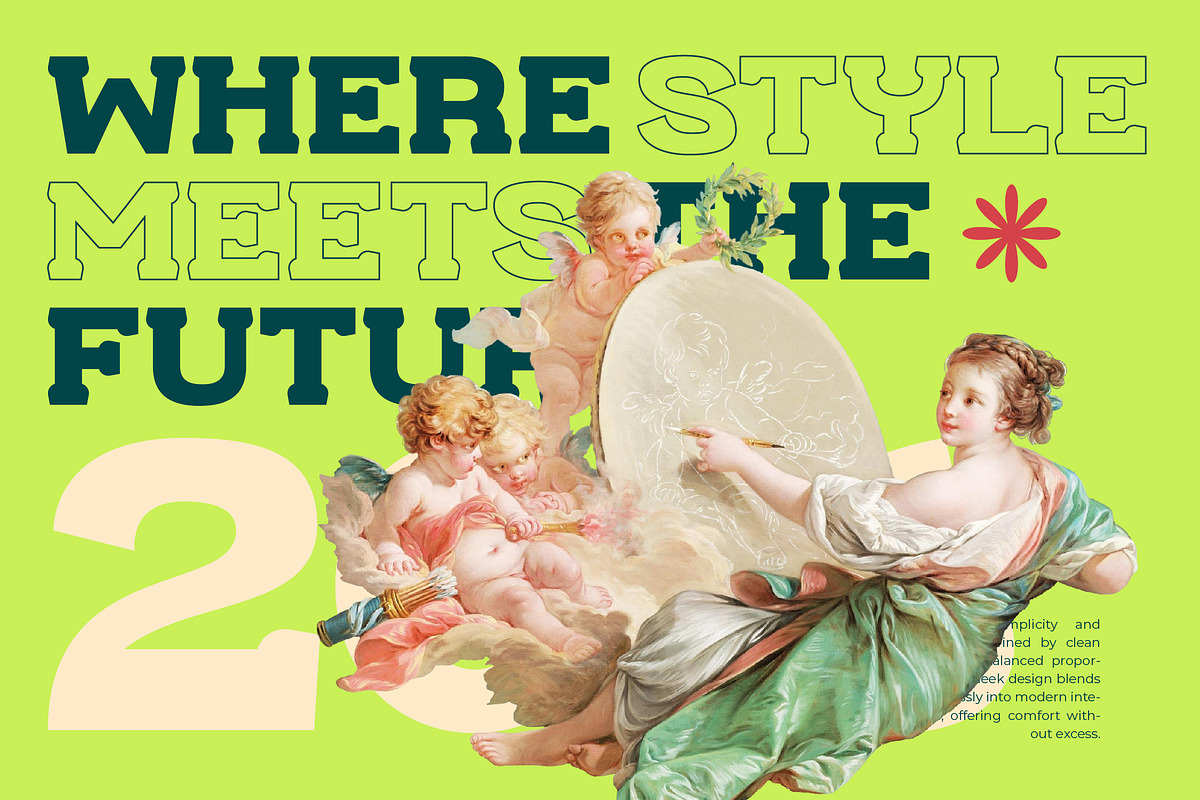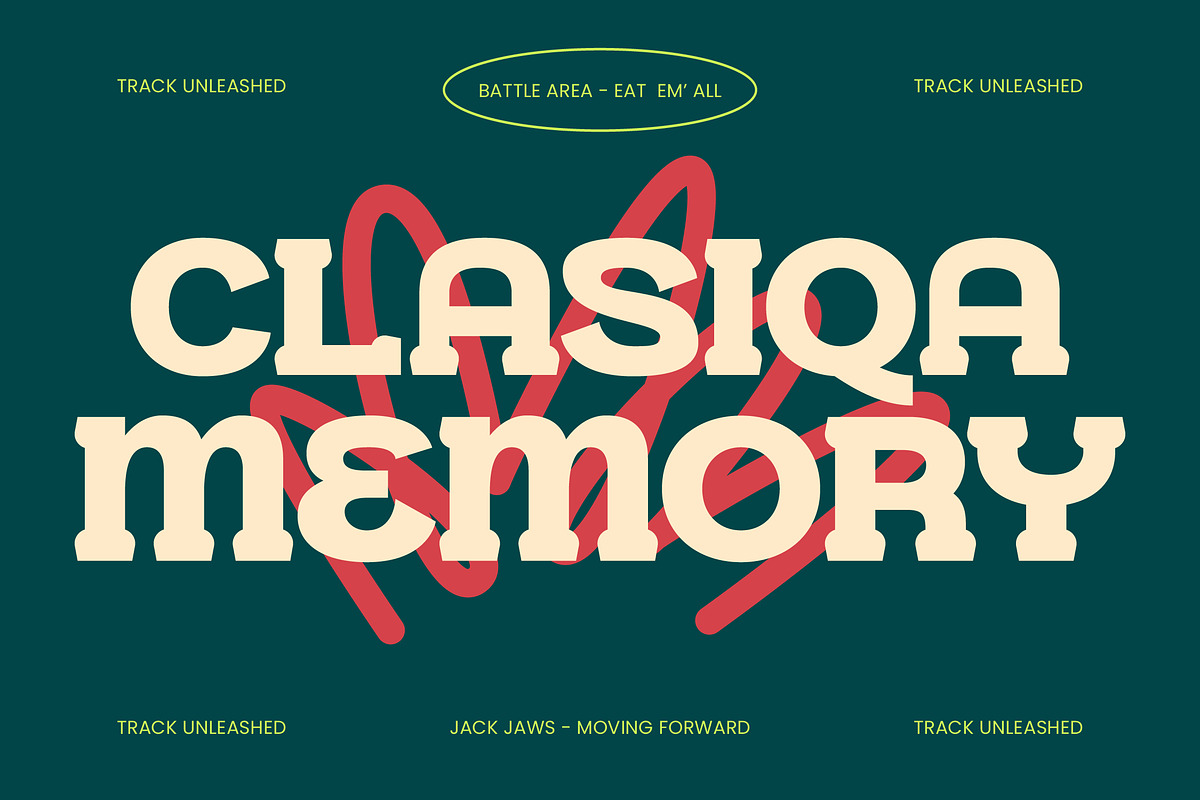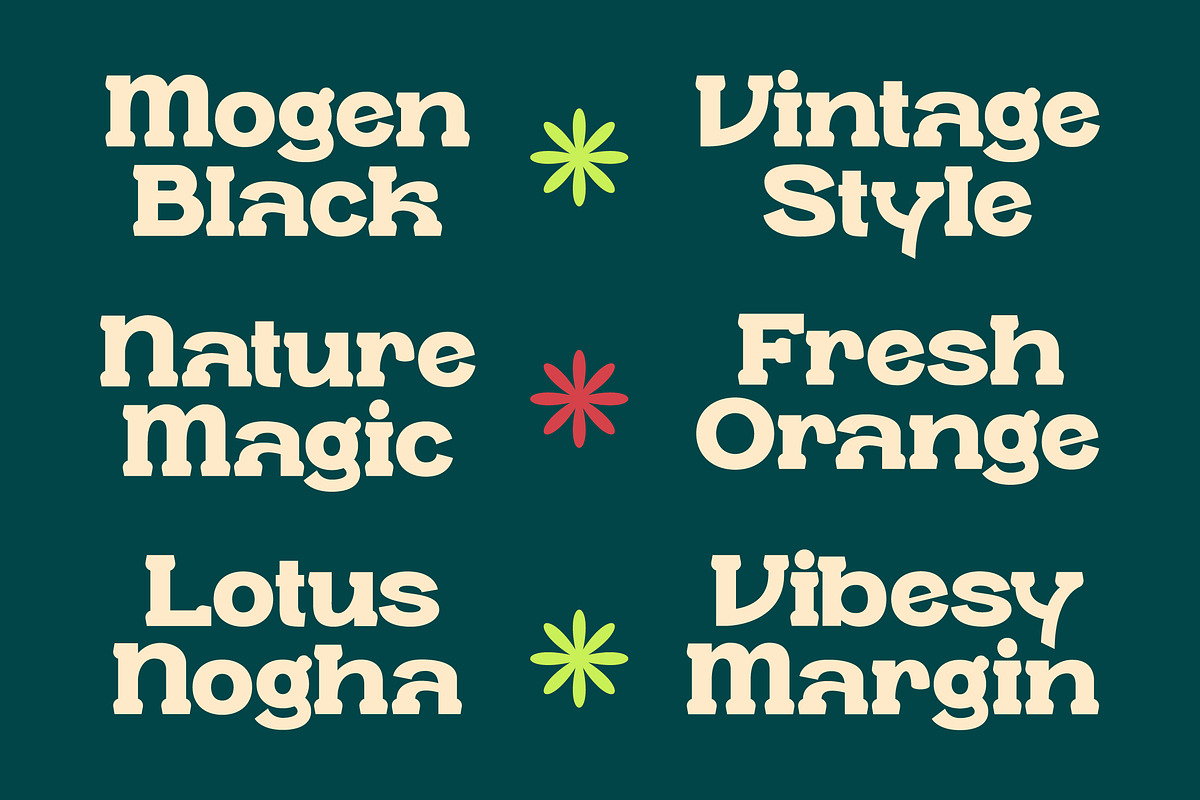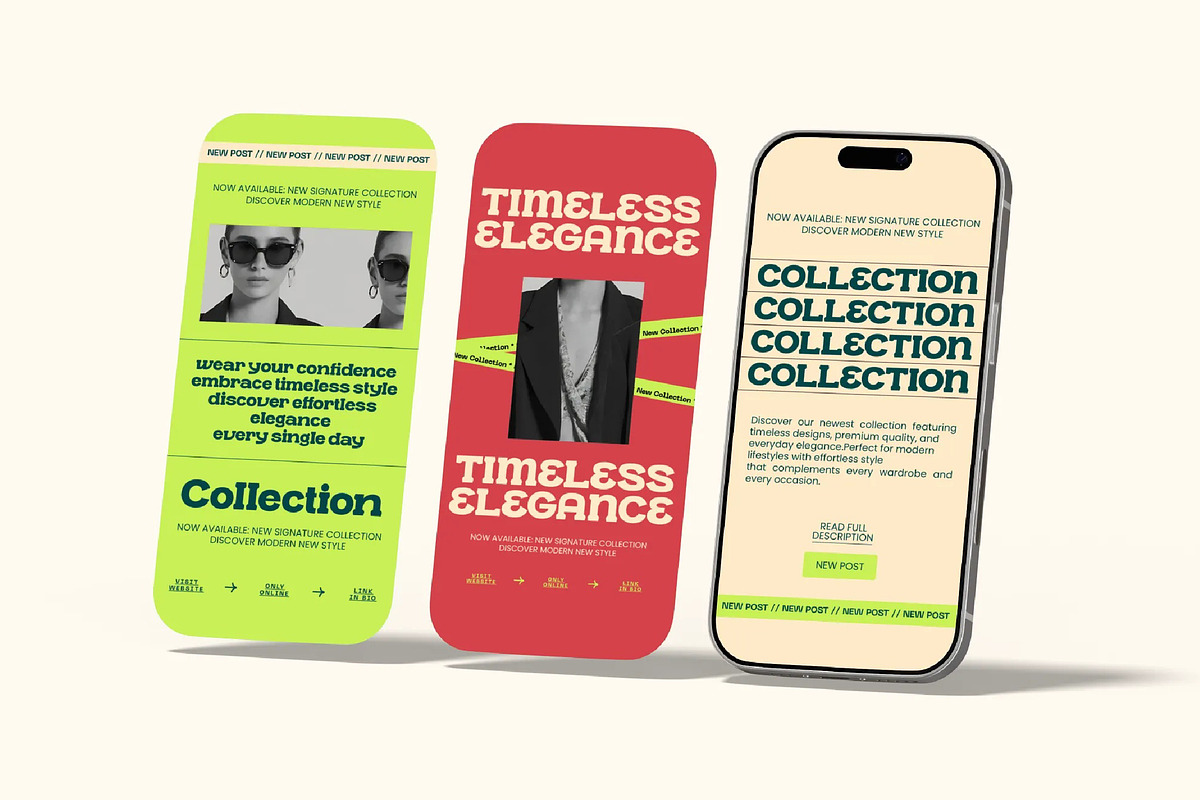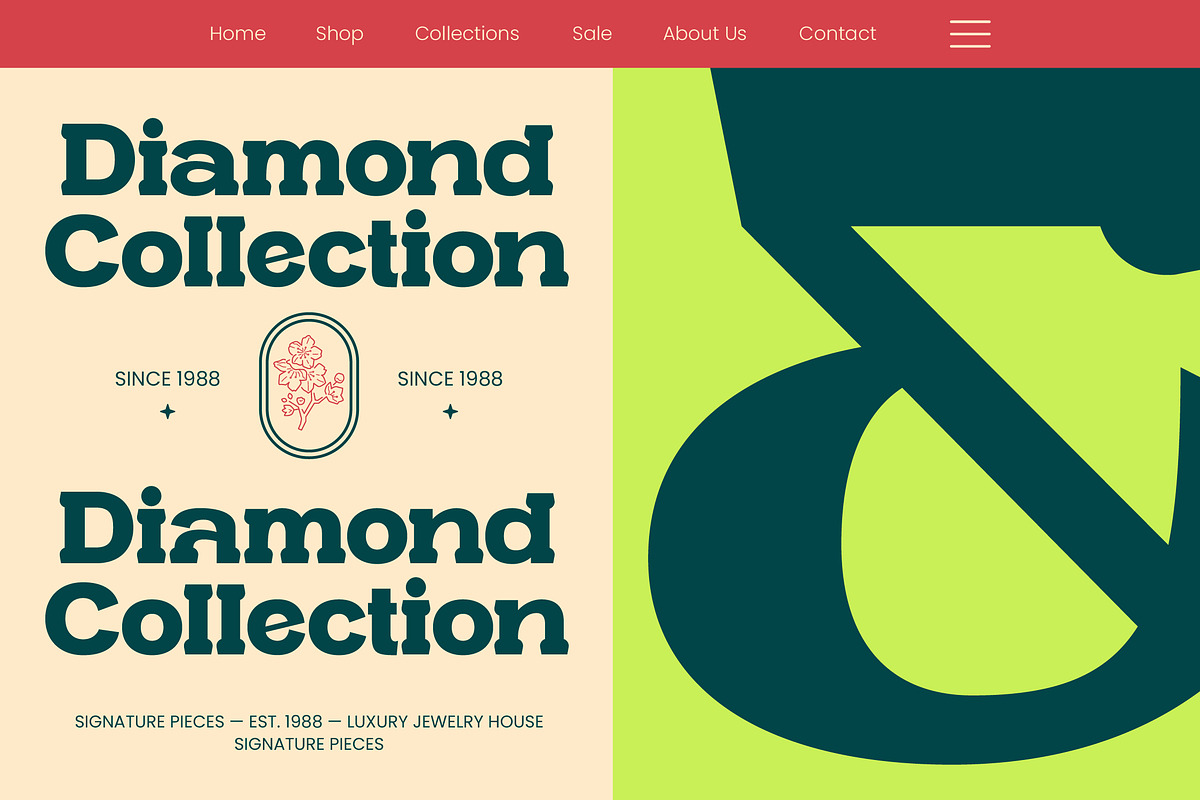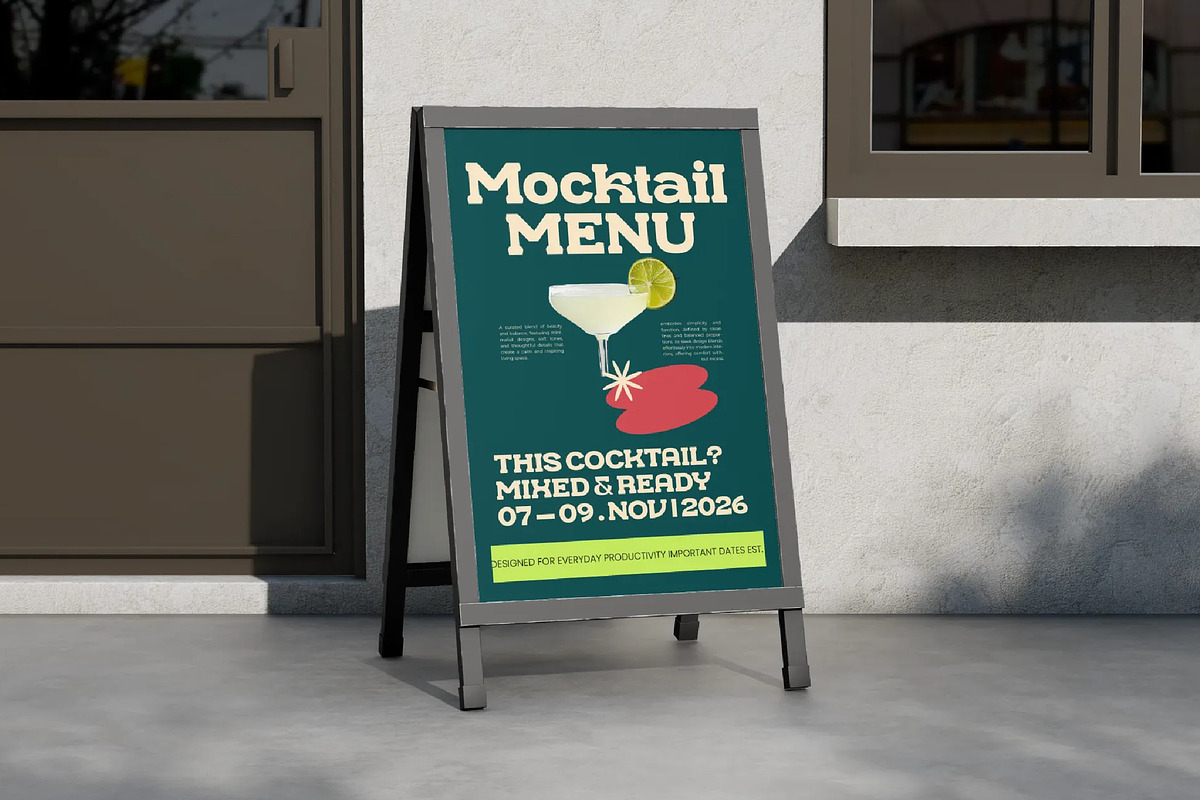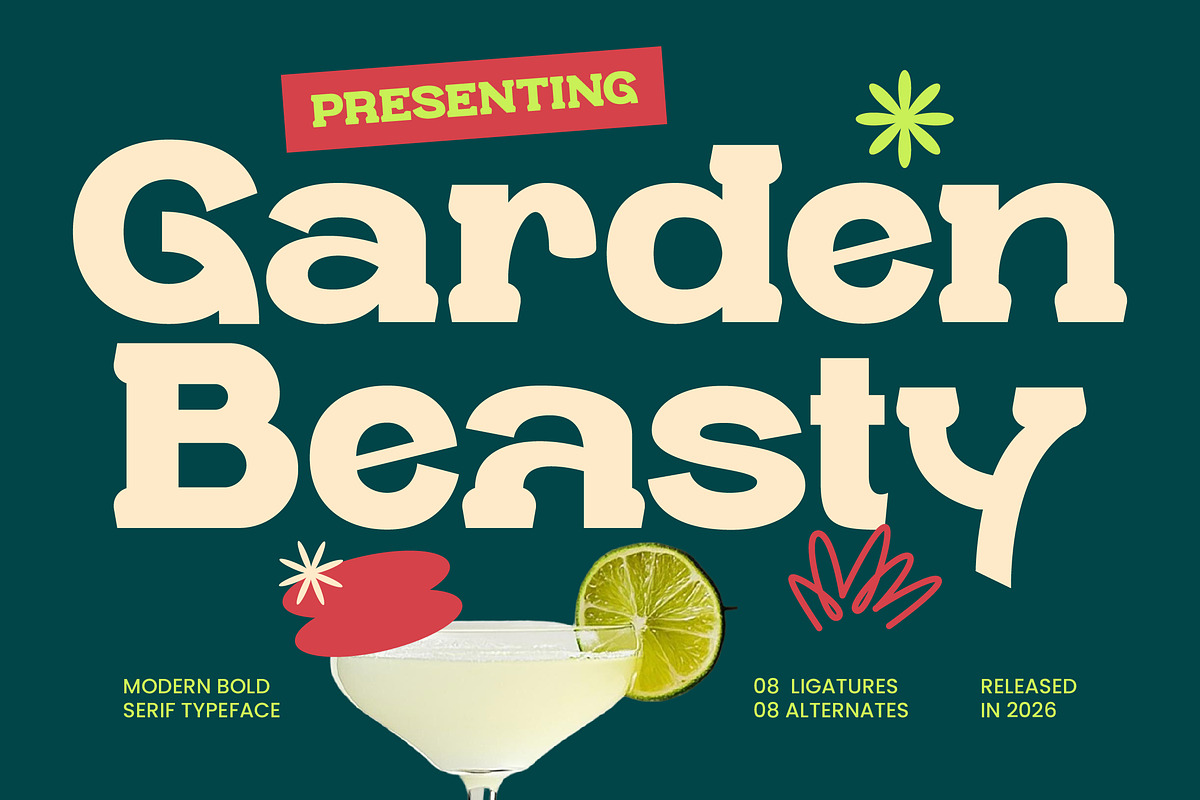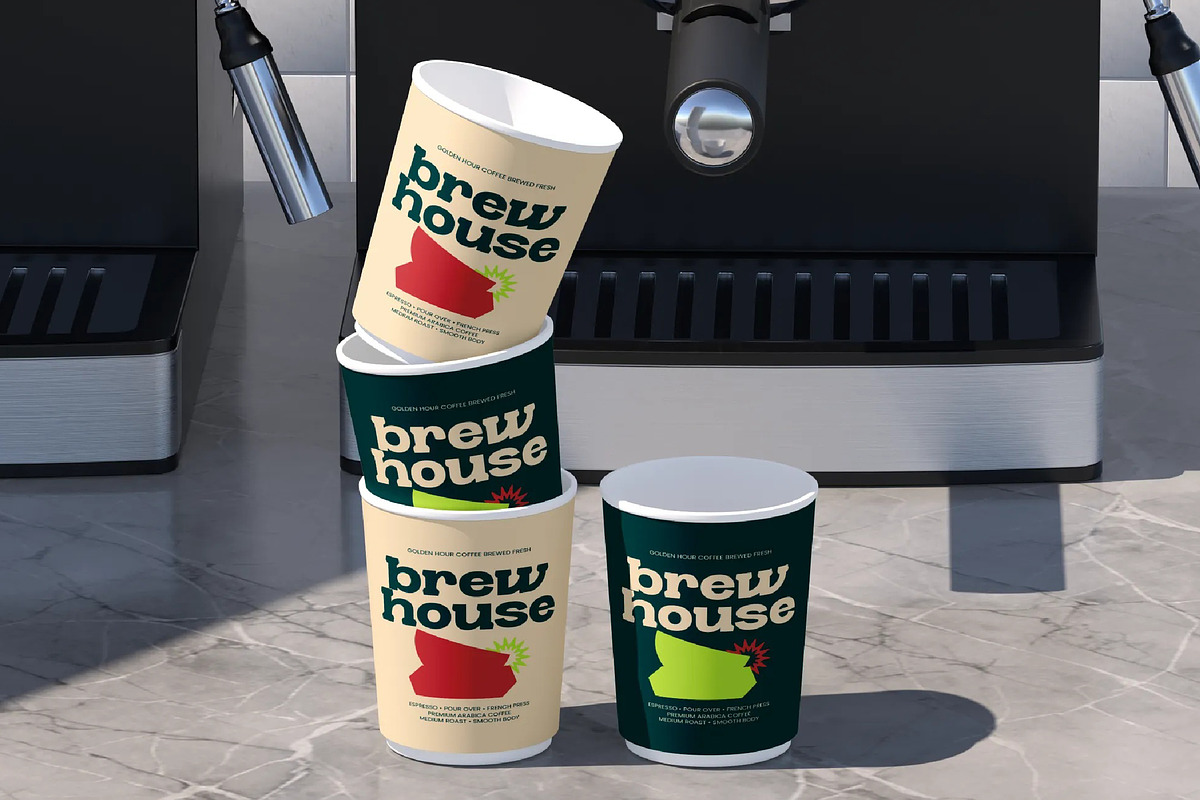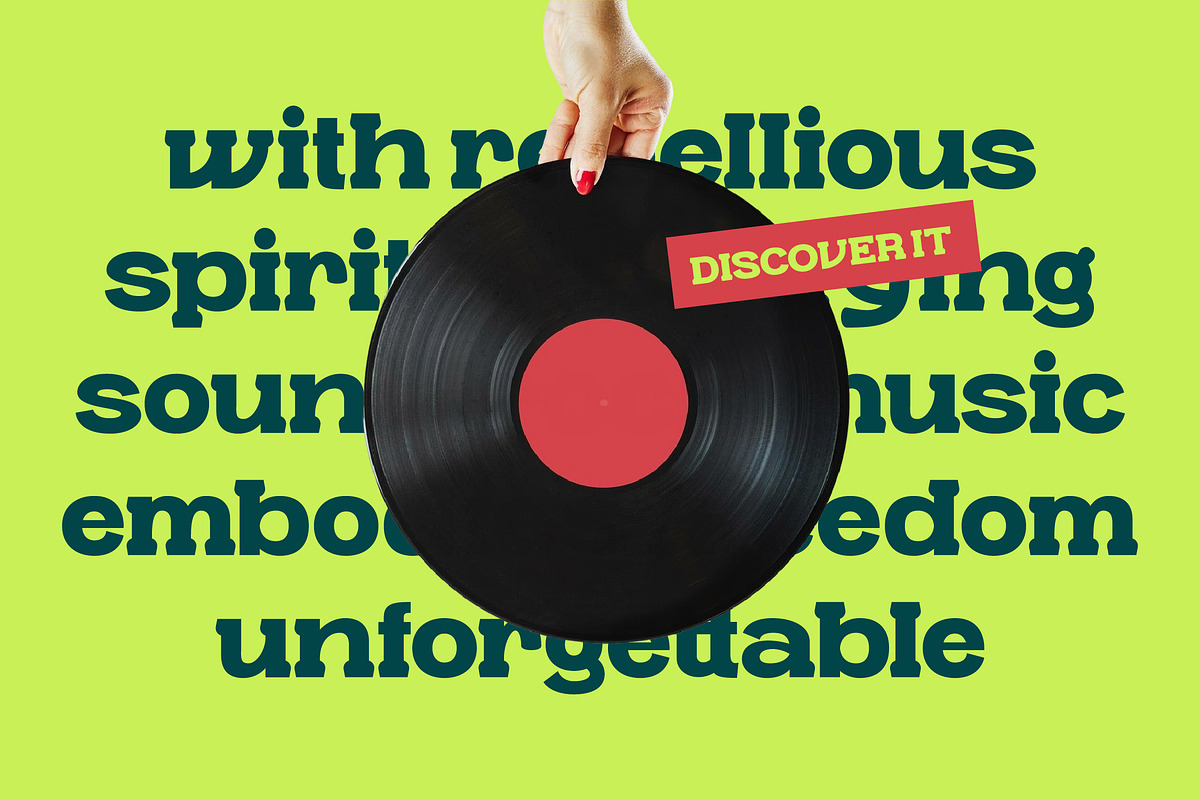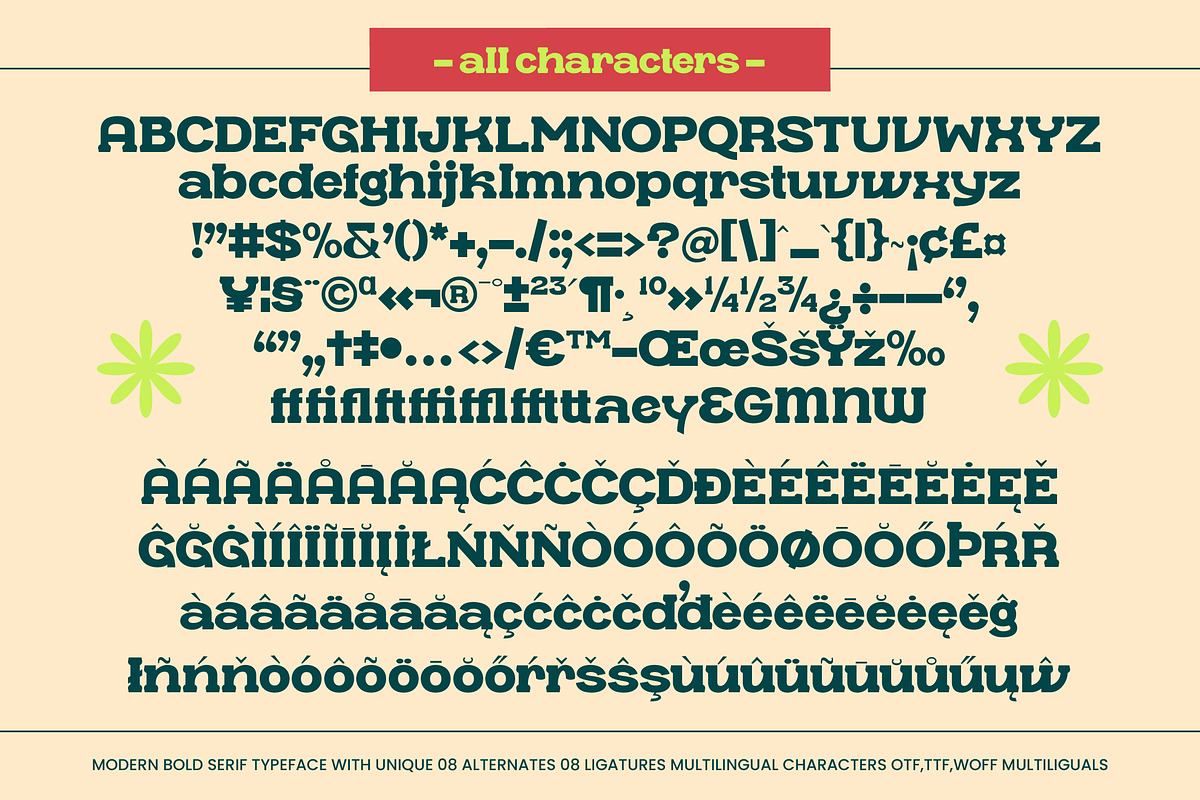
Garden Beasty Modern Bold Serif
Garden Beasty – Modern Bold Serif , Elevate your visual identity with a typeface that defines contemporary elegance and commanding presence. Garden Beasty – Modern Bold Serif strikes a perfect balance between bold authority and artistic flare, offering a high-contrast display style that captures immediate attention. This typeface is the premier choice for designers seeking a premium aesthetic with a touch of retro charm, ensuring that every headline resonates with a modern sophistication that is impossible to ignore.
Unlock endless creative possibilities across various high-end design sectors with this versatile tool. Garden Beasty – Modern Bold Serif is perfect for luxury branding, high-impact editorial layouts, and bespoke packaging for the gourmet food and beverage industry. Whether you are crafting a dynamic logo, a striking magazine header, or promotional social media graphics, this typeface provides the typographic excellence needed to distinguish your brand in a crowded marketplace.
Expand your brand's reach with a professional typeface designed for a connected, worldwide audience. With its extensive multilingual support, Garden Beasty – Modern Bold Serif adapts seamlessly across global markets, making it incredibly versatile for international projects. This inclusive character set ensures that your visual message remains consistent and impactful across borders, providing a cohesive brand experience for a diverse global audience.
Command the spotlight with a professional typographic solution built for the future of high-end design. Featuring exclusive ligatures and unique alternates, Garden Beasty – Modern Bold Serif offers the flexibility to create customized typography that feels truly handcrafted. Its impeccable kerning and refined letterforms guarantee a polished finish for both digital interfaces and high-quality print media, cementing its status as an essential asset for any modern designer’s toolkit.